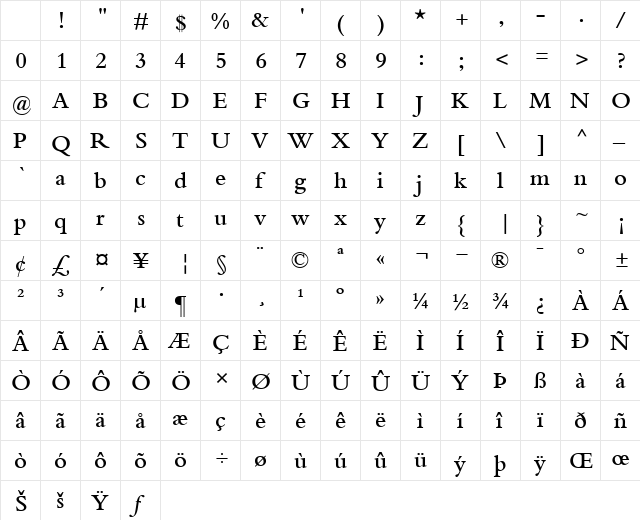
Bembo-SemiBold Semi Bold
Style: Semi Bold
Complete Bembo-SemiBold Semi Bold glyph index. Displaying only characters natively supported by Bembo-SemiBold Semi Bold font.
Design Context for Bembo-SemiBold
Bembo-SemiBold is a composed and adaptable typeface that performs quietly and consistently across a wide range of design contexts. Its bold stroke weight gives it real presence on the page.